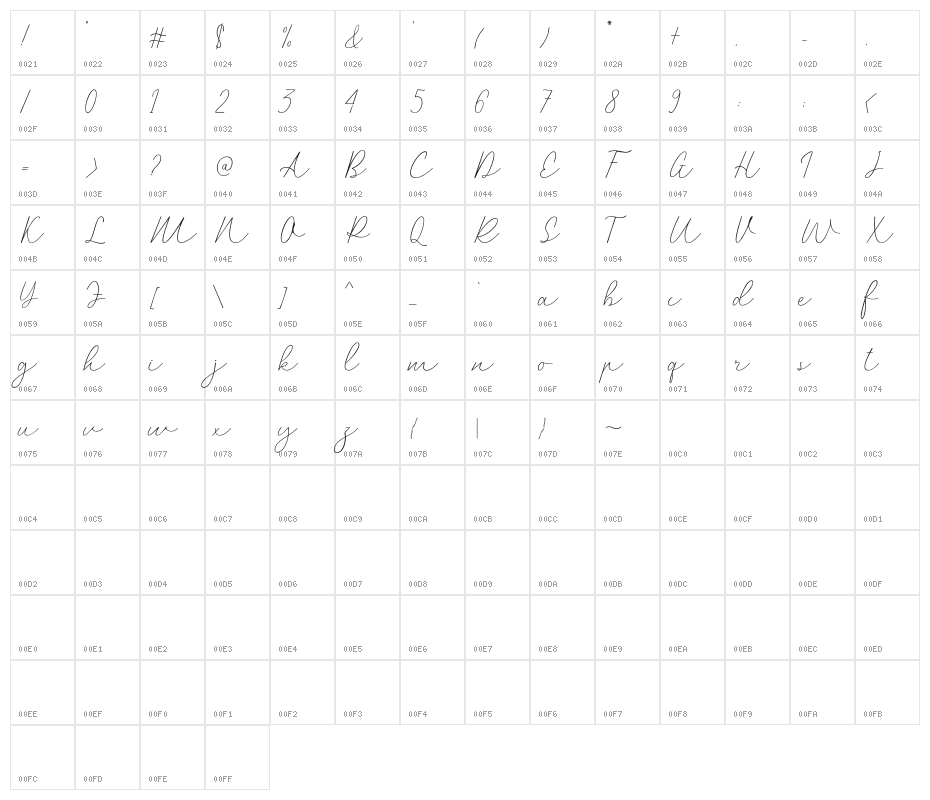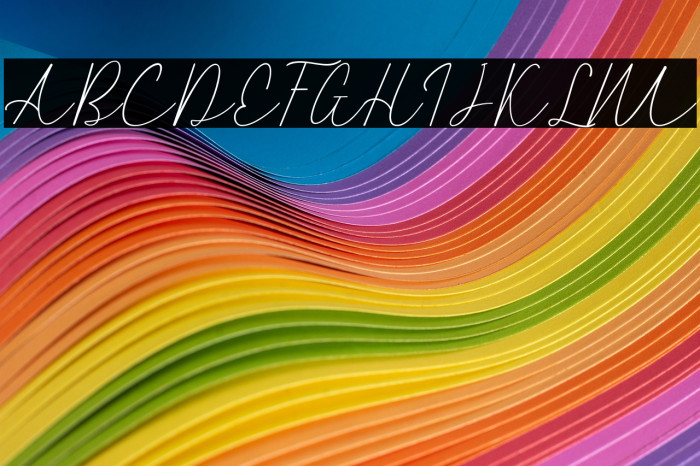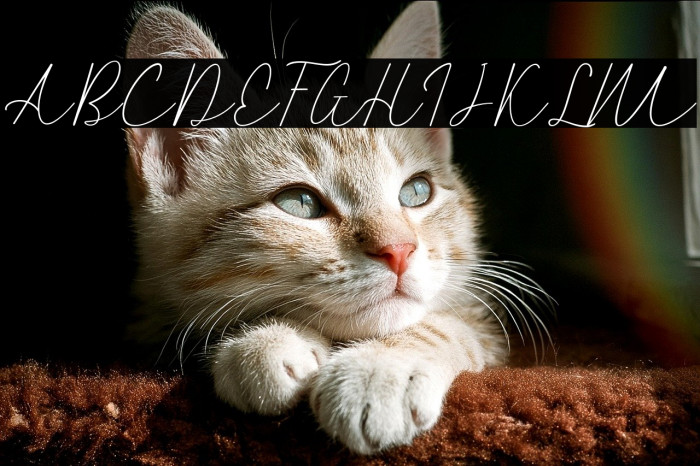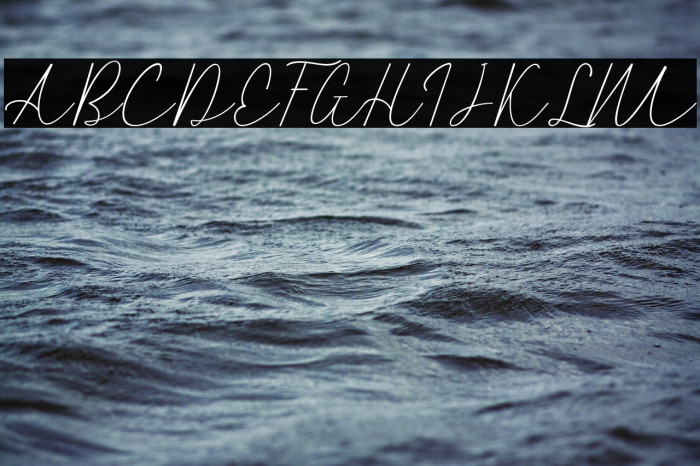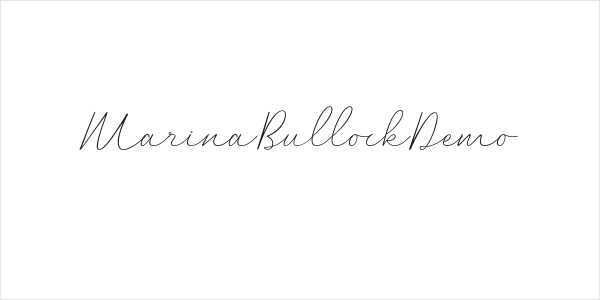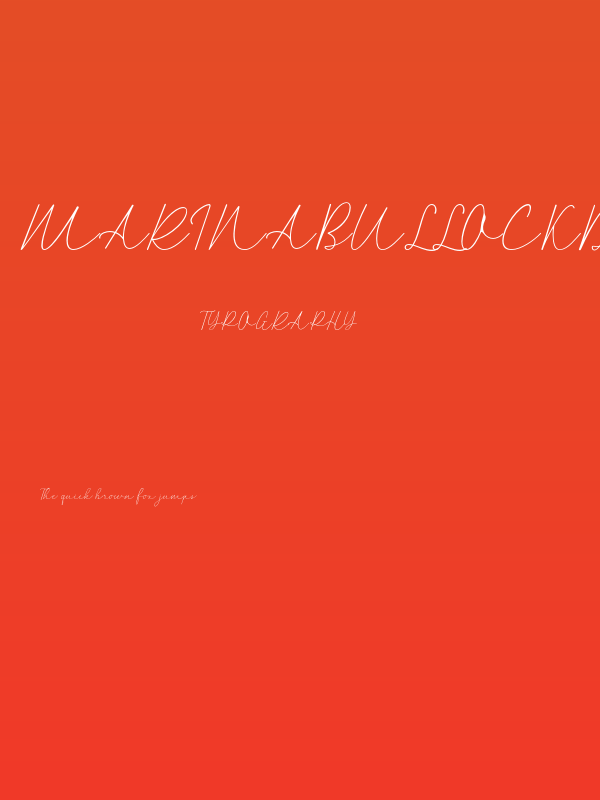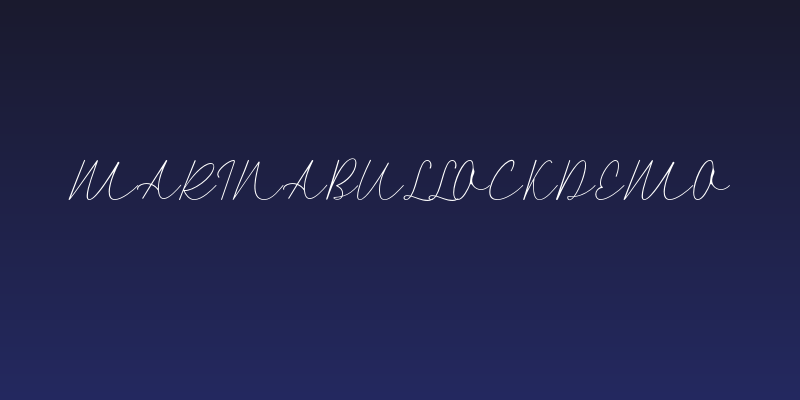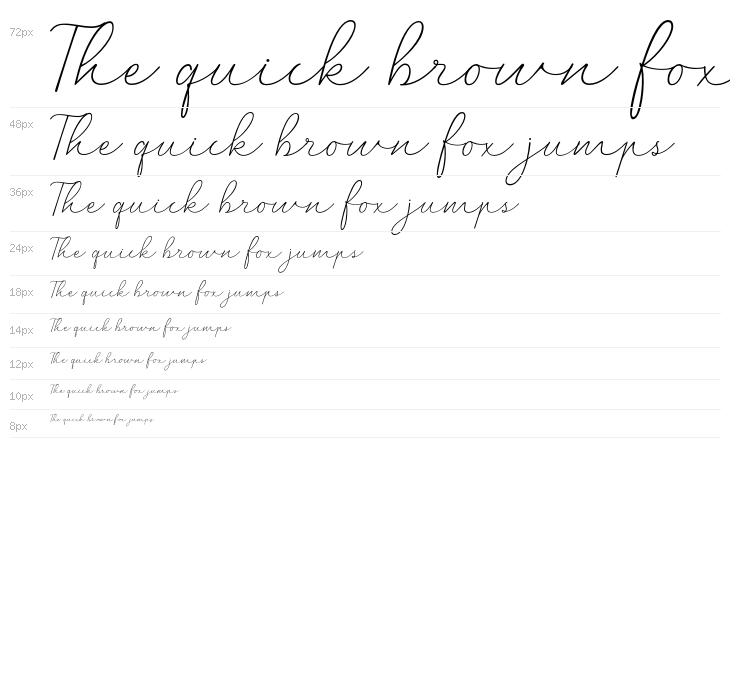
MarinaBullockDemo Font
MarinaBullockDemo Description
This elegant script font features a fluid, cursive style with smooth, flowing lines that mimic natural handwriting. The uppercase letters are slightly more embellished, with graceful loops and curves, while the lowercase letters maintain a consistent, connected flow. The numerals and special characters are designed to complement the overall script style, maintaining the same fluidity and elegance. The font's delicate strokes and refined appearance make it ideal for projects that require a personal, sophisticated touch.
| Overall Style | Elegant, Handwritten |
| Proposed Projects | Ideal for wedding invitations, greeting cards, personal branding, and elegant stationery. |